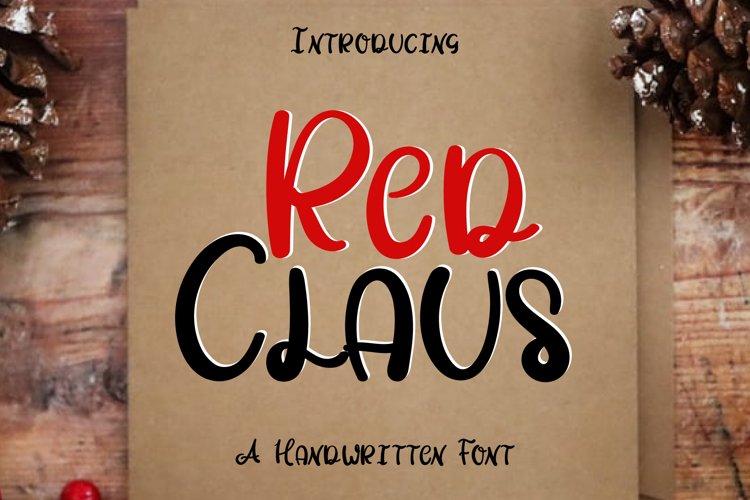
Red Claus is a sweet and round lettered handwritten font. Its natural and romantic style makes it incredibly fitting to a large pool of designs. The only limit is your imagination!